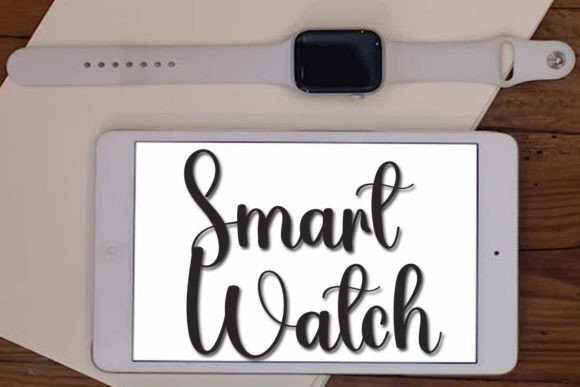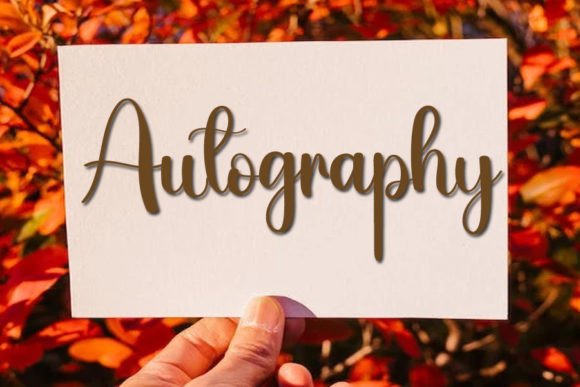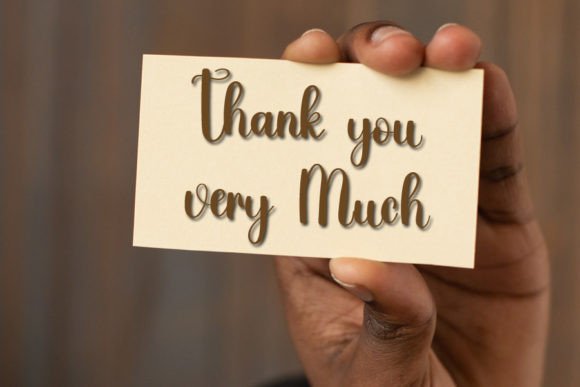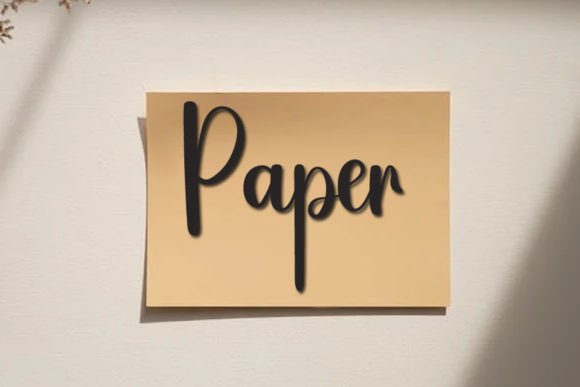
Sweety Font
Bring Elegance and Charm with Sweety Handwritten Font
The Sweety Handwritten Font is a beautifully crafted typeface that combines the elegance of calligraphy with the warmth of personal handwriting. Its fluid strokes and stylish curves make it the perfect font for designs that need a touch of sophistication and grace. With Sweety, every word feels like it was written with love and care.
Whether you’re working on a heartfelt wedding invitation or creating a stylish brand identity, Sweety is a font that leaves a lasting impression.
Ideal for Weddings, Branding, Cards, and More
One of the most versatile handwritten fonts available, Sweety shines in a variety of creative applications. It’s particularly ideal for wedding invitations, thank-you cards, and greeting cards—adding a personal and intimate vibe to every message.
Beyond stationery, Sweety is also an excellent choice for branding, logos, and business cards. Its refined lines and unique personality help you communicate professionalism while maintaining a human touch. Even social media posts and quote graphics become more engaging when designed with Sweety.
Crafted for Both Digital and Print Use
Another key advantage of the Sweety Font is its flawless adaptability across both digital and print formats. Whether you’re designing a high-resolution poster or a mobile-friendly Instagram post, Sweety ensures clarity and style at every size.
To maximize the font’s beauty, consider pairing it with a minimalist serif or sans-serif font. This creates visual contrast and enhances readability while allowing Sweety to take center stage in your design.
A Handwritten Style That’s Timeless
What sets Sweety Handwritten Font apart is its timeless charm. It carries just the right mix of playfulness and poise. Its smooth letterforms flow naturally across the page, mimicking the elegance of handwritten notes without losing structure or clarity.
Each stroke is designed to be expressive yet balanced, offering a polished look that feels both sincere and stylish. This makes Sweety a great choice not just for romantic designs but also for premium, fashion-forward projects.
Why Choose Sweety Font?
Designers love Sweety for its:
• Elegant and graceful handwritten appearance
• Perfect fit for invitations, quotes, branding, and social media
• Excellent readability in both large and small formats
• Ability to add warmth and elegance to any project
• Easy pairing with clean, modern fonts
Add a Personal Touch with Sweety
In conclusion, the Sweety Handwritten Font is the perfect typeface for designers who value beauty, emotion, and elegance. Whether you’re crafting an event invitation or designing an upscale logo, Sweety provides the charm and professionalism your project deserves.
Choose Sweety to elevate your designs with timeless elegance and a personal touch.